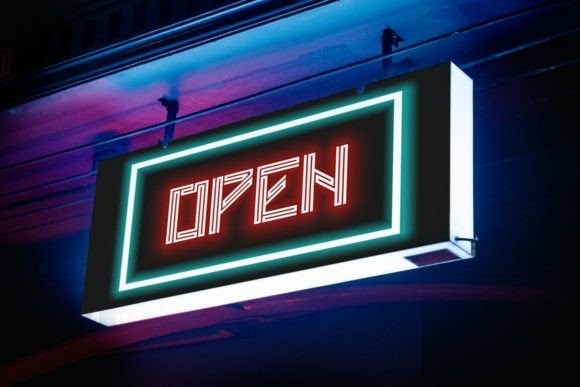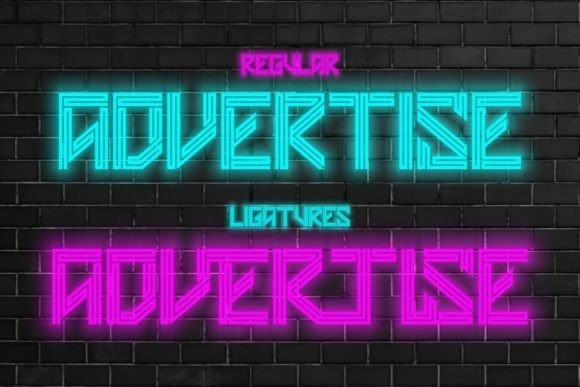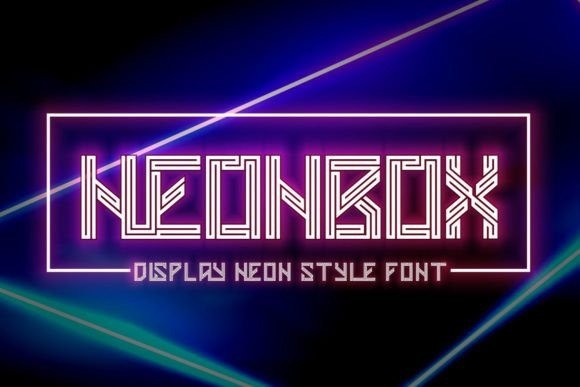
Neonbox Font
Neonbox Display Font is a cool, futuristic display font. Contemporary and fresh, this font will look great on all your modern projects that require bold and daring typography. This font is PUA encoded which means you can access all the glyphs and ligatures with ease!